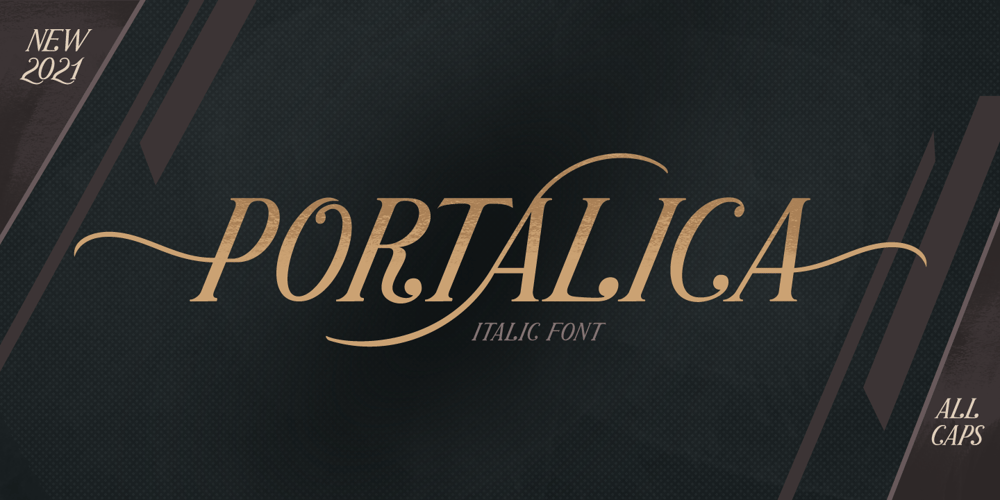
Portalica Font Family was designed by Hendry Juanda and published by Letterhend. Portalica contains 1 styles and family package options. Introducing our newest typeface called Portalica – A Stylish Italic Serif font. This typeface has many alternates with swashes that can make your lettering / logotype become more interesting. The clean and neat of a serif combined with the swirl swashes makes this font one of a kind!This font perfectly made to be applied especially in logo, and the other various formal forms such as invitations, labels, logos, magazines, books, greeting / wedding cards, packaging, fashion, make up, stationery, novels, labels or any type of advertising purpose.Features : uppercase & lowercase numbers and punctuation multilingual ligatures alternates swashes PUA encoded We highly recommend using a program that supports OpenType features and Glyphs panels like many of Adobe apps and Corel Draw, so you can see and access all Glyph variations.